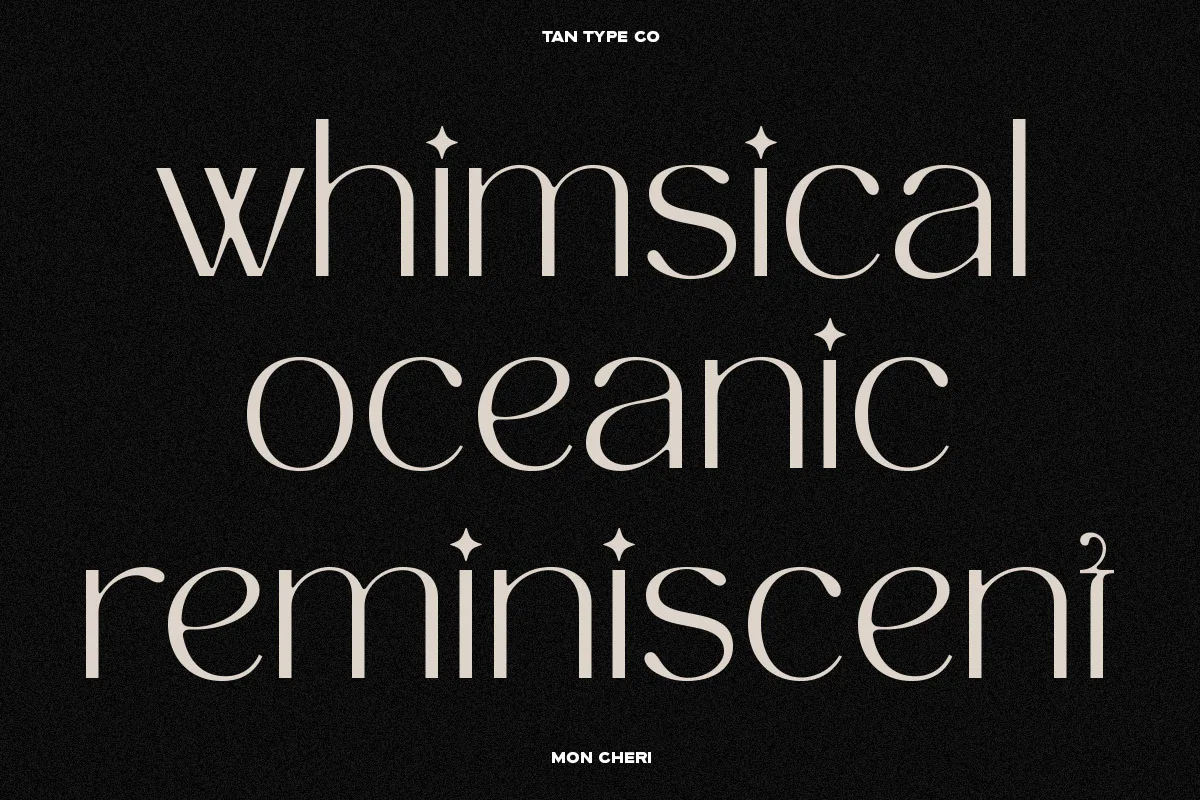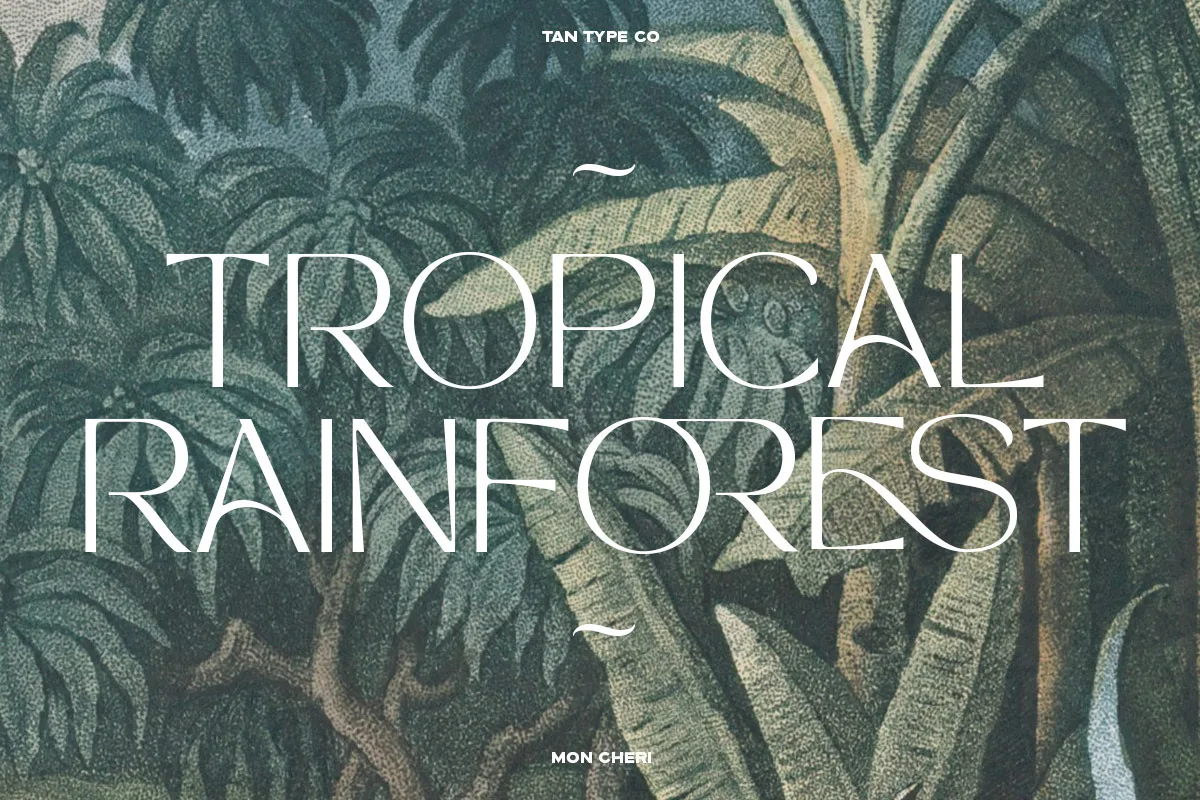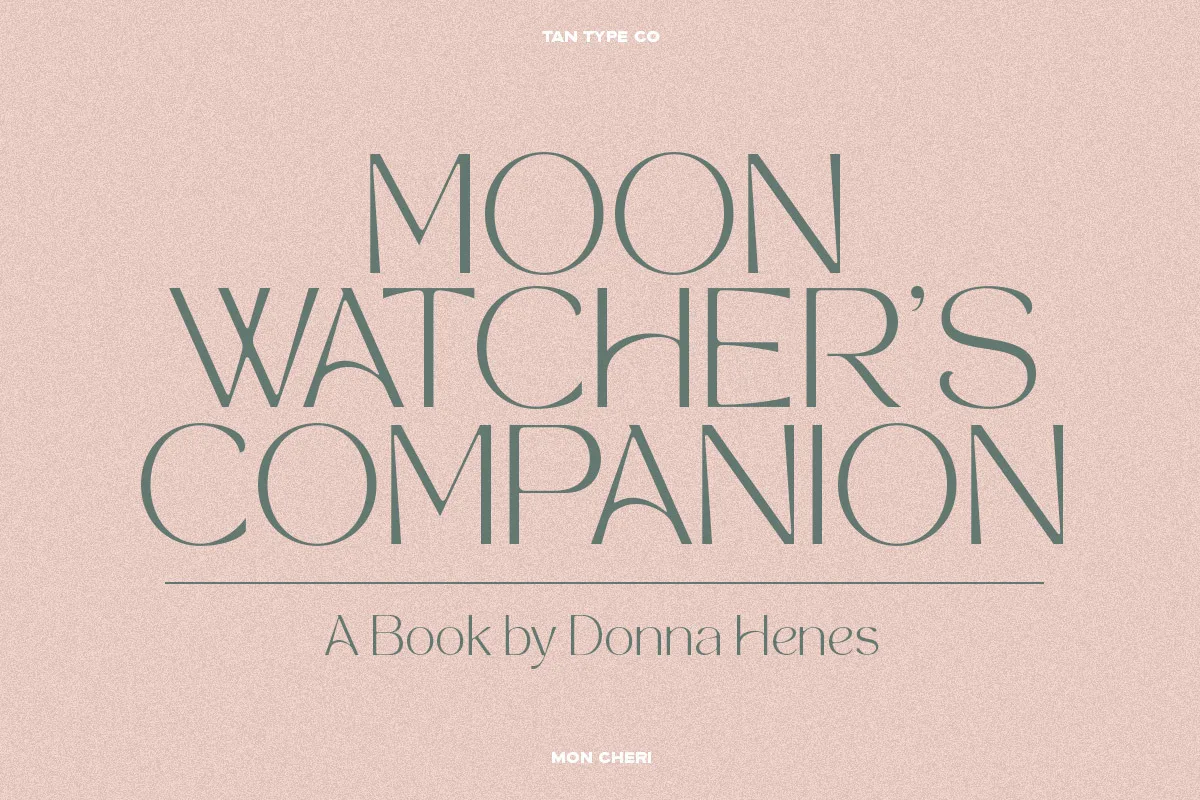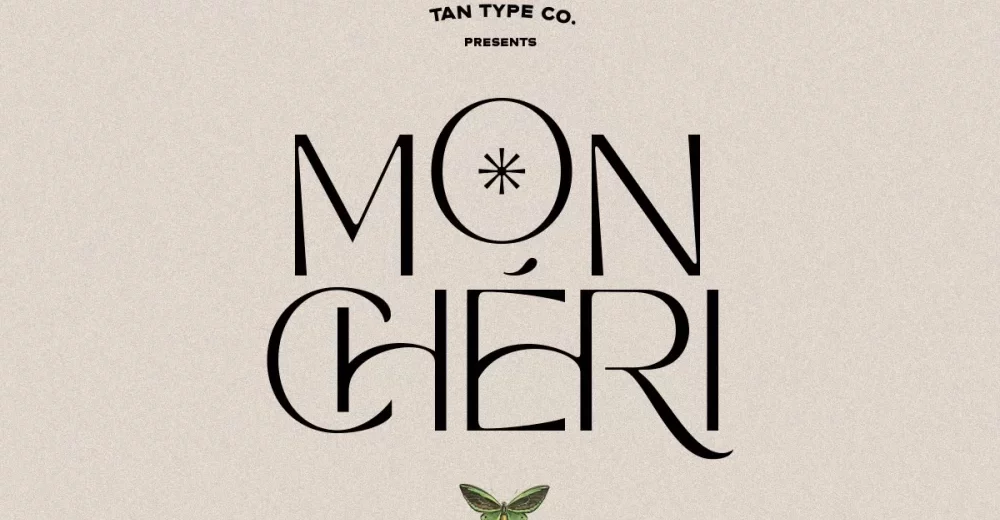
Tan Mon Cheri Font
Tan Mon Cheri is an elegant sans serif. Simple letter shapes with playful ligatures, keeping its legibility high.
Tan Mon Cheri font preview — sample text
Tan Mon Cheri font alphabet, numbers and glyphs
Tan Mon Cheri font style preview